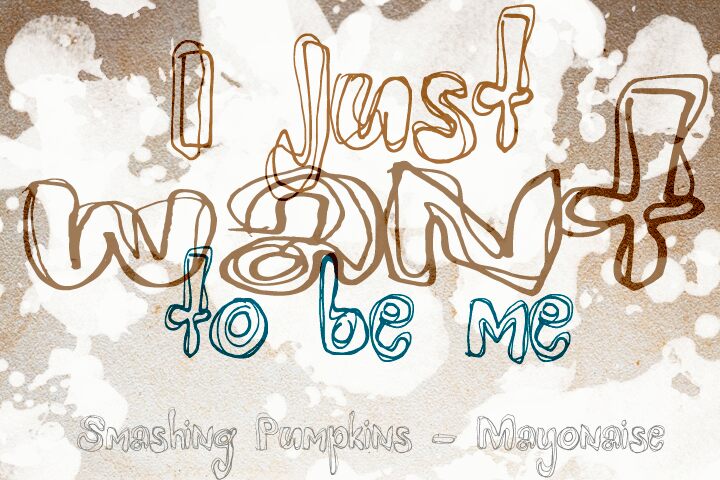
Mayonaise by David Kerkhoff is a free distorted display font with a graffiti streak. Its swollen, wavering letters lean into one another, and repeated sketchy contours make the forms look redrawn in quick passes.
Packaging gives this unruly outline style a convincing home, especially on snack labels and offbeat food branding that can play on the font's name and loose drawing. It also suits gig posters and streetwear graphics aimed at younger audiences drawn to DIY illustration and scrappy marker lettering.